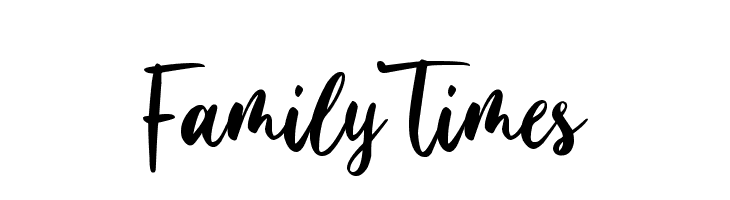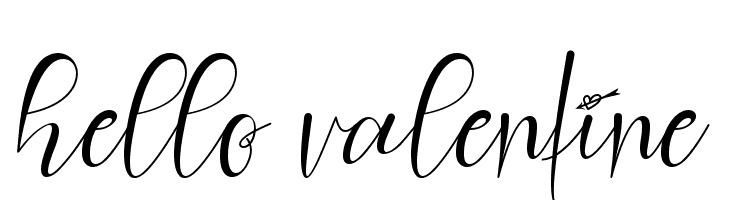
An outline font with a blend of serif and decorative elements, offering a bold and artistic style.
A dynamic, expressive handwritten font with varied stroke thickness.
A bold, collage-style font with a punk rock, rebellious aesthetic.
A sleek, modern geometric font with consistent stroke width and minimalistic design.
A tactile font representing Braille for visually impaired readers.
A decorative symbol font with Moroccan and Algerian national motifs.
A charming and elegant script font with flowing, cursive letterforms.
A playful, hand-drawn font with thin, elongated strokes and a whimsical style.
A playful, modern hollow font with rounded, smooth characters.
设计师偏爱 EddaOutline, Carliman, Hit me, punk! 02, Glasket Medium and Joy Shark Semi-Expanded,因为其造型干净、适用范围广—— 从品牌识别到落地页、海报都能胜任。